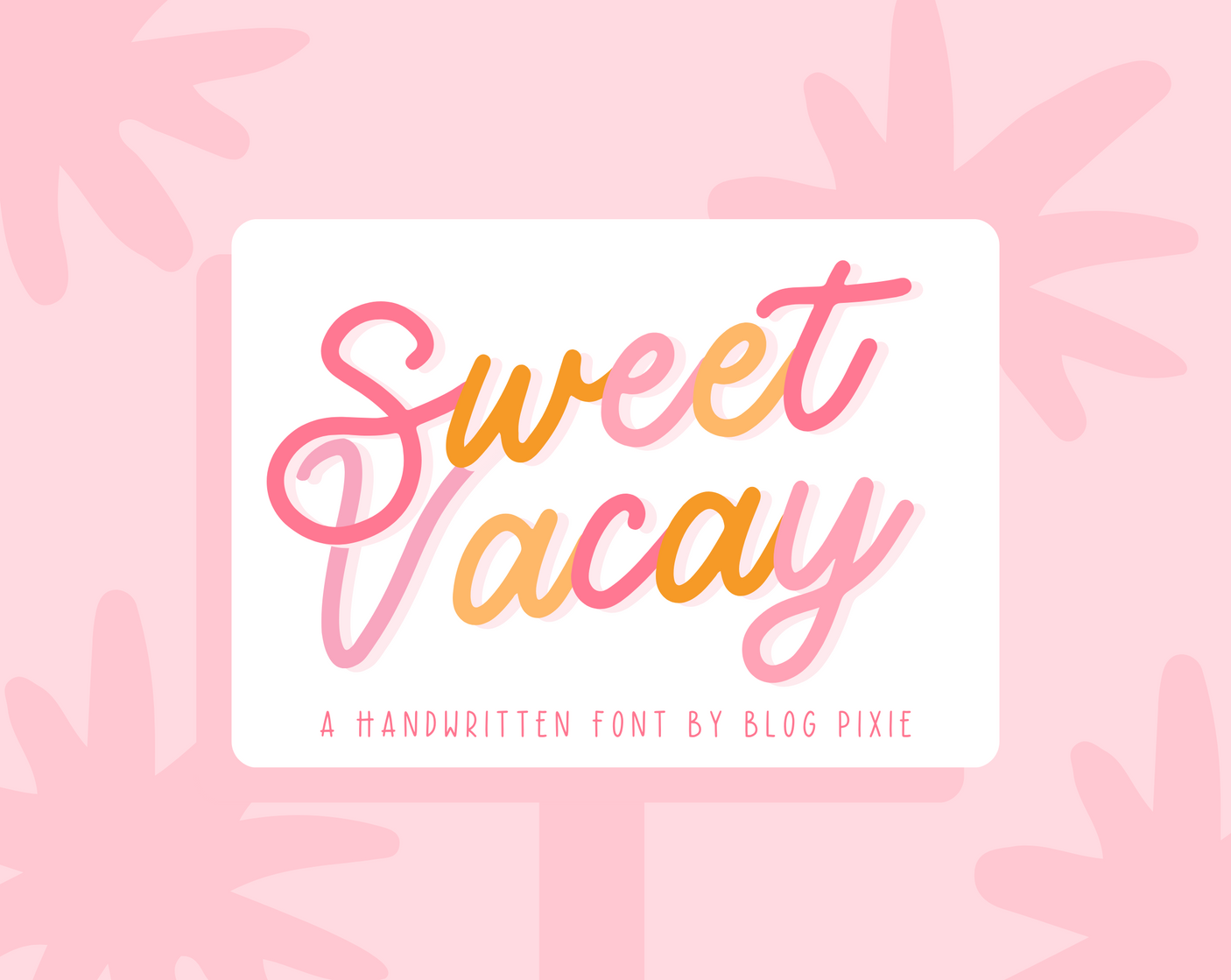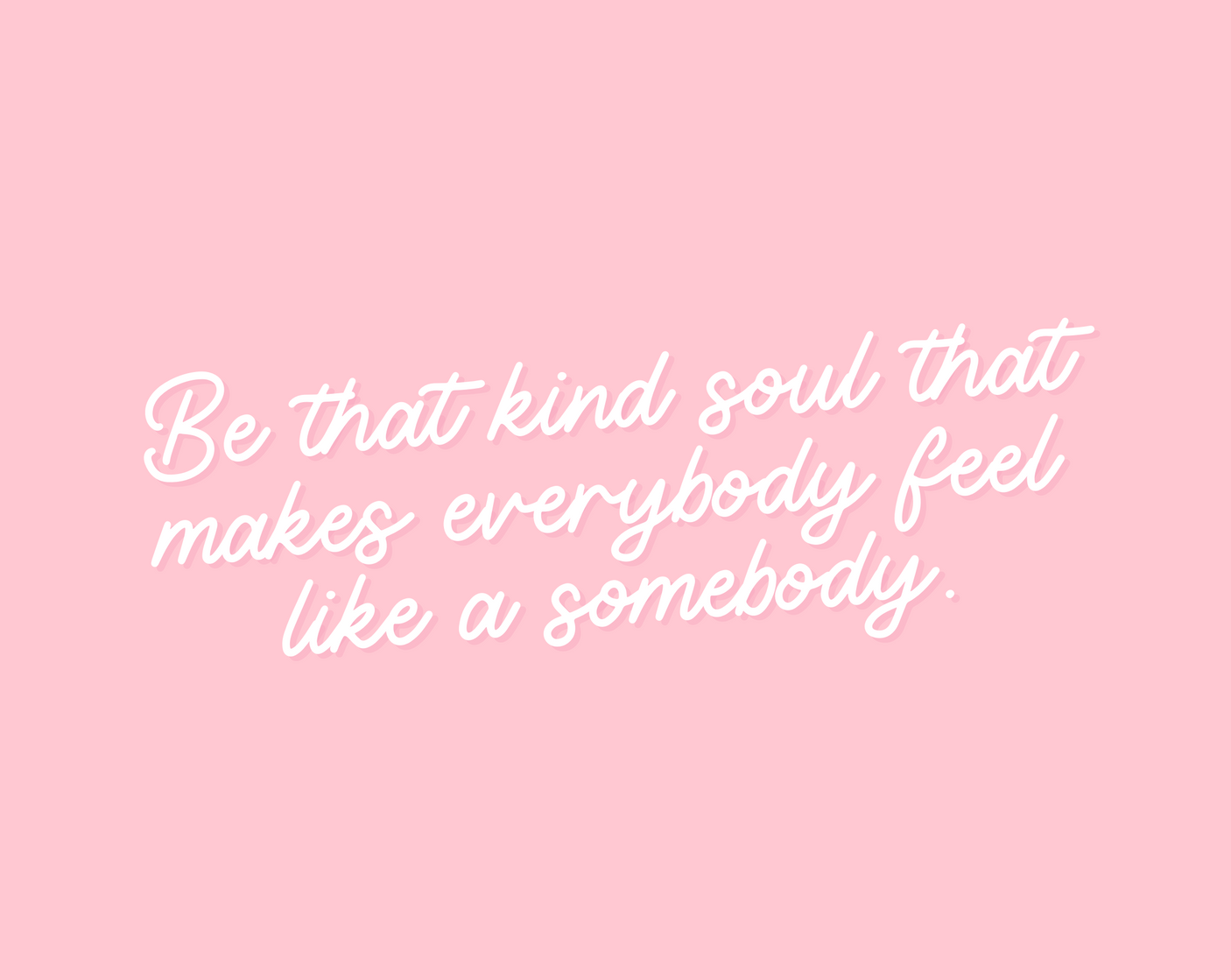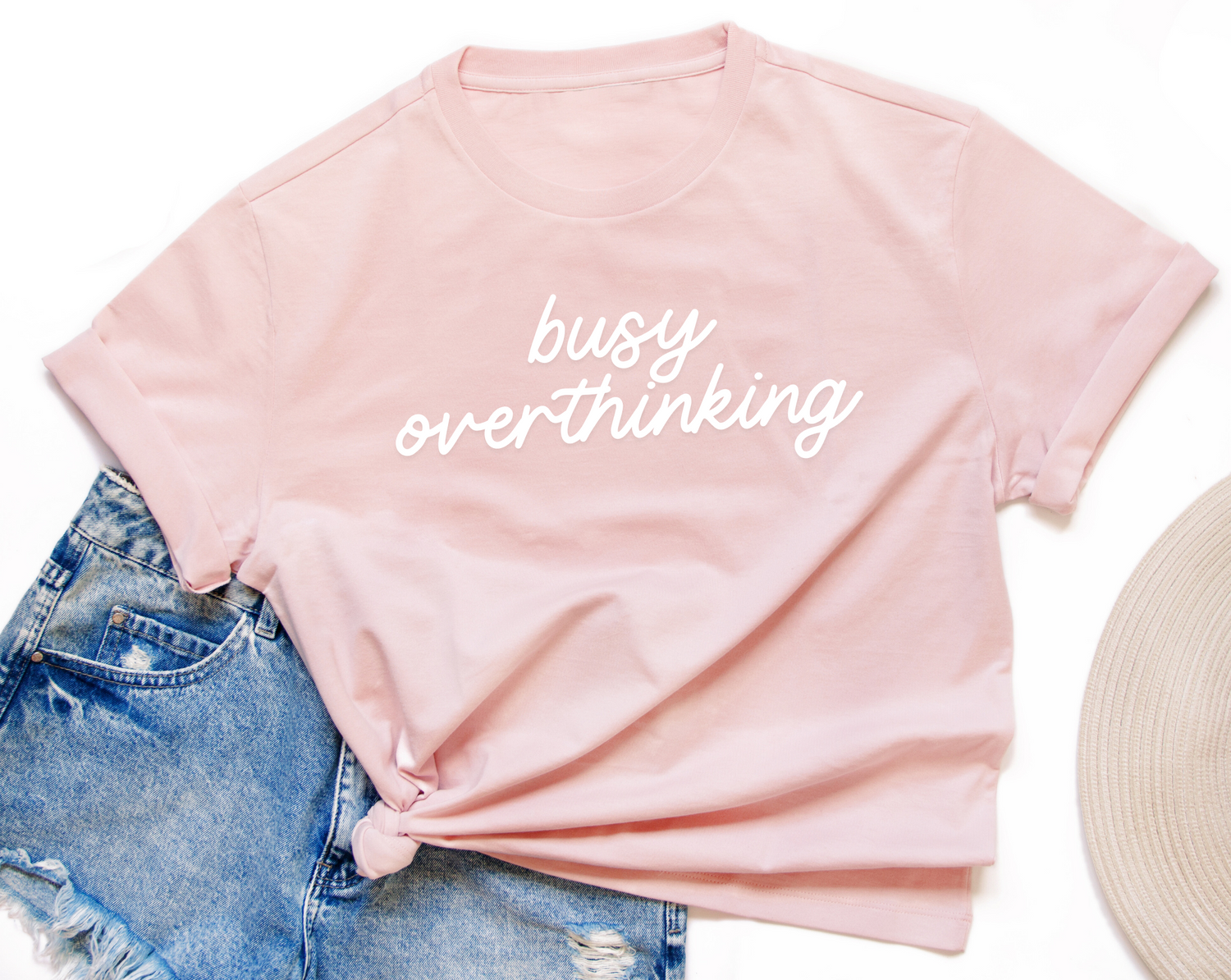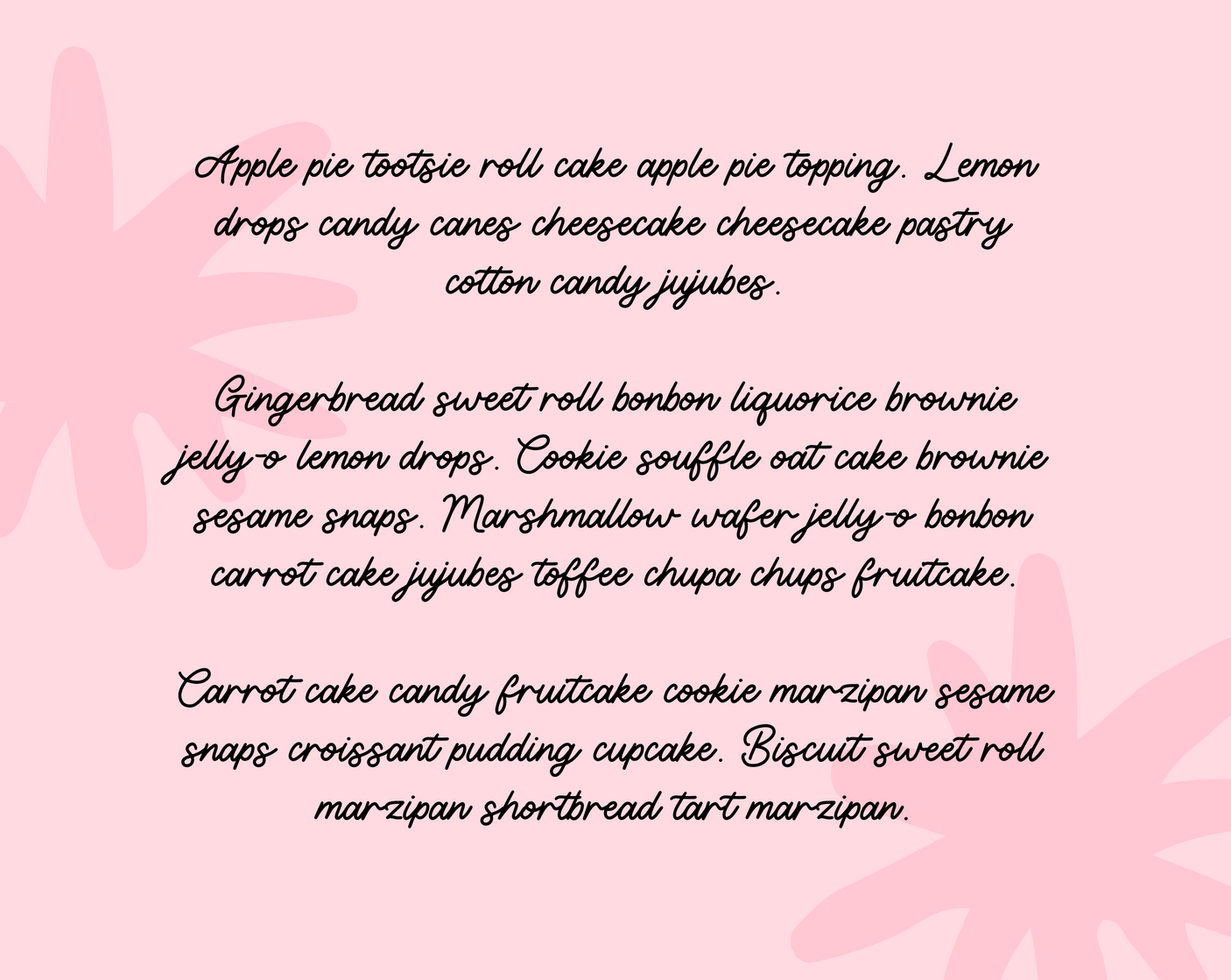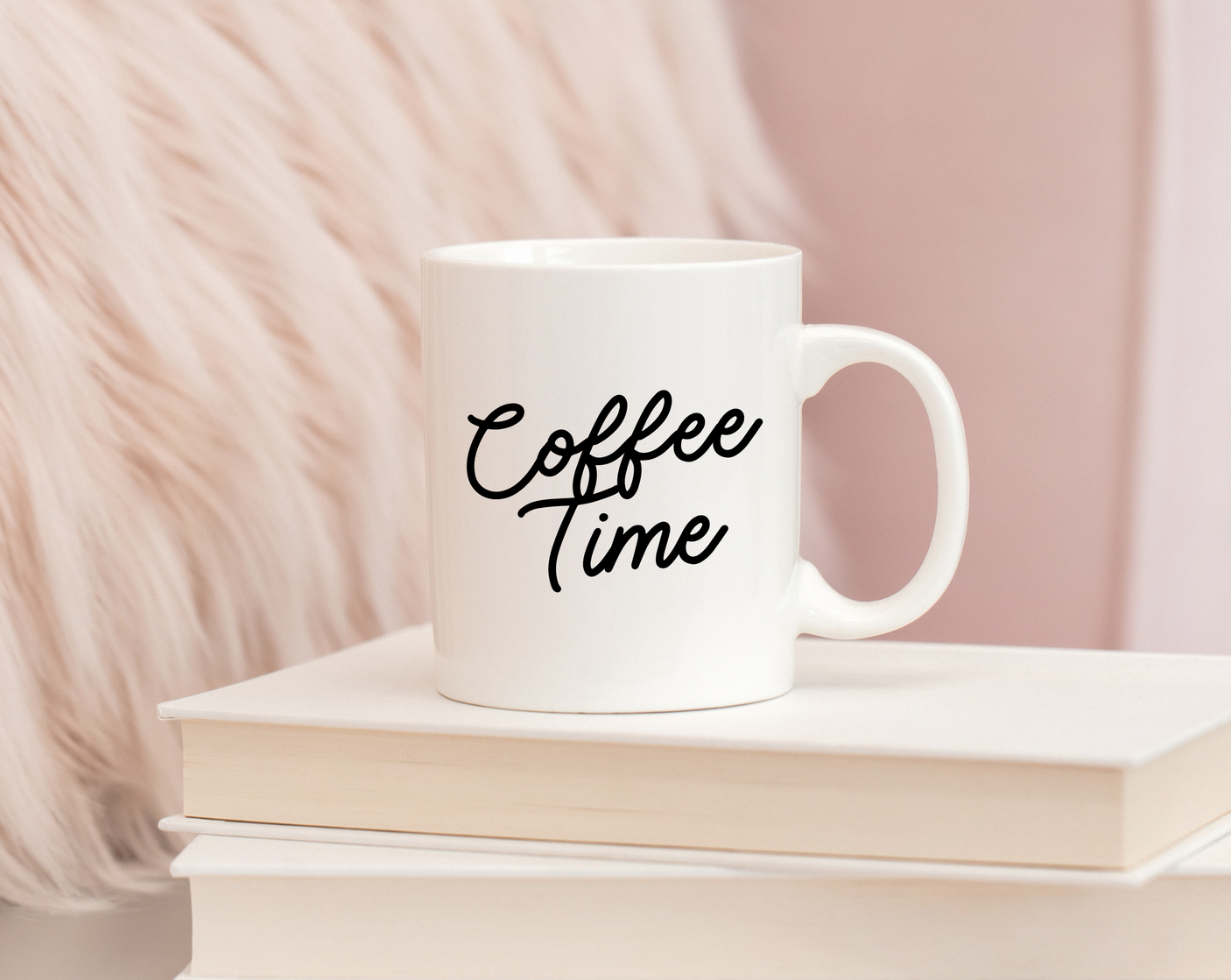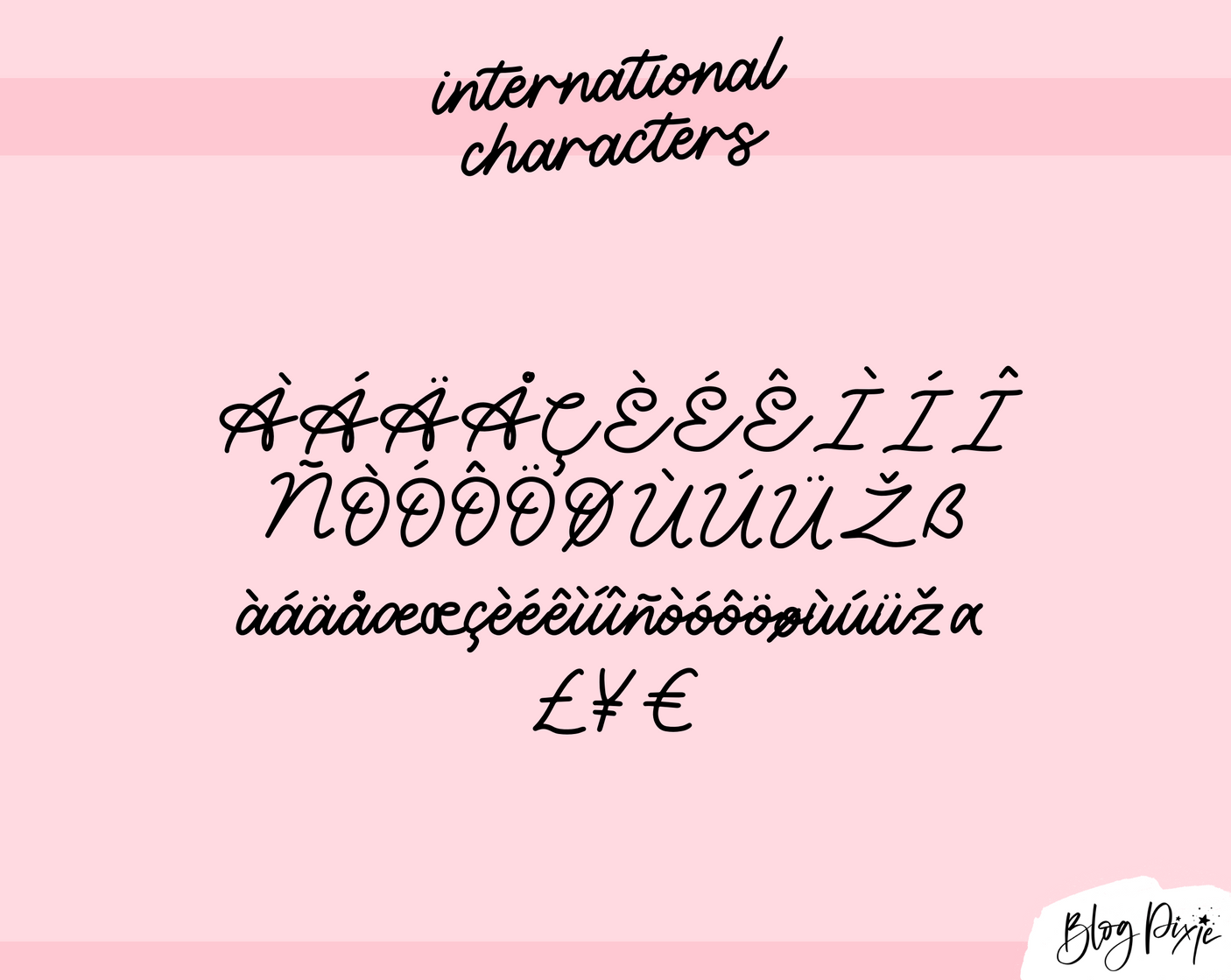
Sweet Vacay Font
Sweet Vacay is a cursive handwriting font by Blog Pixie. A great addition to add to your collection, this font can be used for Cricut, Procreate, Goodnotes, iPad and more. It’s a neat handwritten font for digital planning, note-taking, logos, crafty work and digital projects.